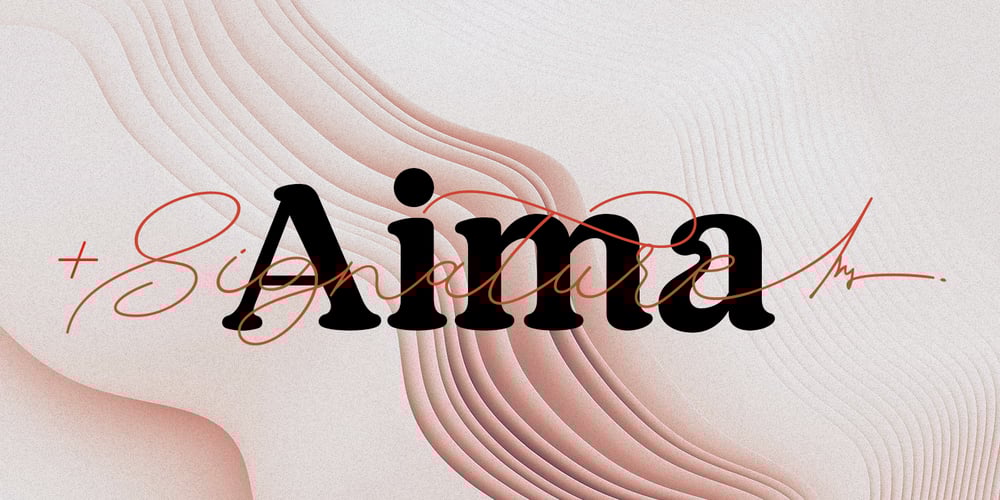
Aima Font Duo Font Family was designed by Ambia and published by Areatype. Aima Font Duo contains 2 styles and family package options. Aima Font Duo A sweet signature font, casual and dynamic with a dancing baseline. Also available Aima Display to help you mix and match it to fit your creative work in harmony. all to add an authentic touch to your designs. perfect for Branding, Logos, Greeting Cards, Wedding Stationery, Quotes etc.Files included:Numerals & PunctuationStylistic Alternates & LigaturesPUA Encoded CharactersThanks so much for looking, I really hope you enjoy it and please don’t hesitate to drop me a message if you have any issues or queries :)Happy using